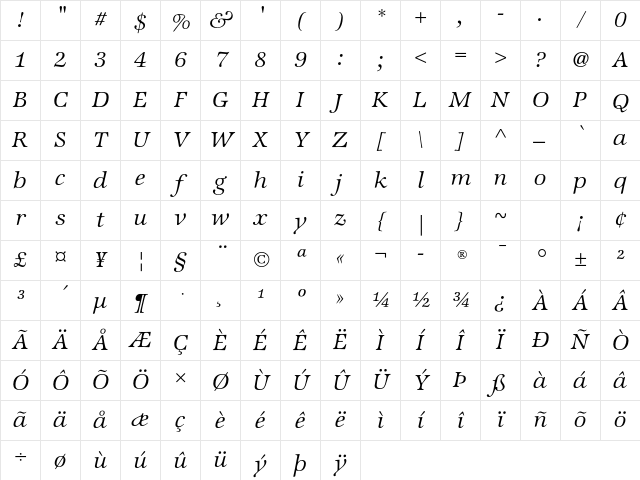
Zapf Intl ITC Std LightIta
Style: LightIta
Foundry: International Typeface Corporation
Designer: Hermann Zapf
Design Context for Zapf Intl ITC Std
Zapf Intl ITC Std is a composed and adaptable typeface that performs quietly and consistently across a wide range of design contexts. Its slender proportions lend an understated elegance to any composition.